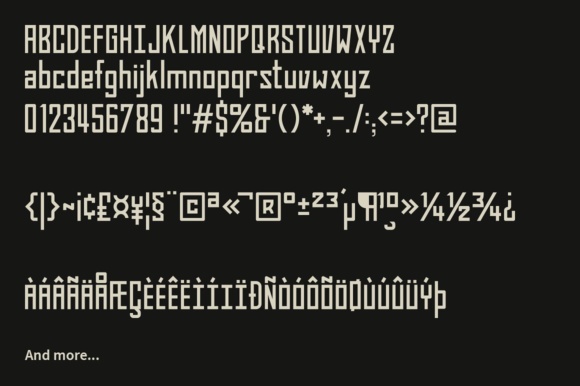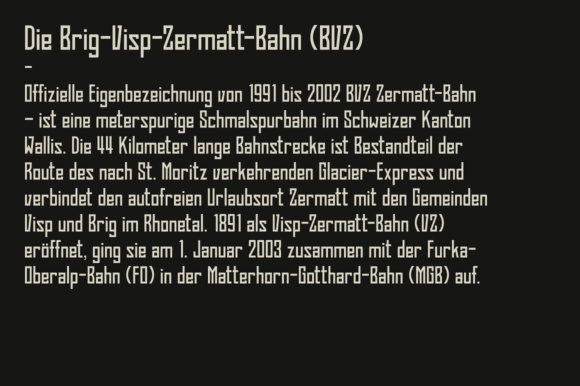
Bahn Pro Light Font: A Sleek and Nostalgic Display Font
Are you looking for a font that adds a touch of nostalgia and sophistication to your design projects? Look no further than Bahn Pro Light, a sleek and tall display font inspired by old Austrian Bahn (railway) signs. This font is perfect for use in a wide range of projects, from branding and advertising to packaging and signage.
The Inspiration Behind Bahn Pro Light
Bahn Pro Light is part of a wider font family that takes its cues from the classic typography of Austrian railway signs. The font’s design is rooted in the nostalgic feel of these vintage signs, which evoke a sense of adventure and travel. The Bahn Pro Light font has been carefully crafted to capture the essence of this retro aesthetic, while also offering a clean and modern look that’s perfect for contemporary design projects.
Key Features of Bahn Pro Light
So what makes Bahn Pro Light such a great choice for designers and crafters? Here are just a few of the key features that set this font apart:
- Sleek and tall design: Bahn Pro Light is a display font that’s designed to make a statement. Its sleek and tall design makes it perfect for use in headlines, titles, and other display text.
- Nostalgic feel: The font’s inspiration from old Austrian Bahn signs gives it a unique and nostalgic feel that’s sure to add a touch of character to your design projects.
- Clean and modern look: Despite its retro inspiration, Bahn Pro Light has a clean and modern look that’s perfect for contemporary design projects.
- Part of a wider font family: Bahn Pro Light is just one style in a wider font family, offering a range of options for designers who want to create a cohesive look across their projects.
Uses for Bahn Pro Light
So what can you use Bahn Pro Light for? The possibilities are endless! Here are just a few ideas to get you started:
- Branding and advertising: Bahn Pro Light is perfect for use in branding and advertising projects, where its sleek and sophisticated design can help to create a lasting impression.
- Packaging design: The font’s clean and modern look makes it a great choice for packaging design, where it can help to create a professional and eye-catching look.
- Signage and wayfinding: Bahn Pro Light’s inspiration from railway signs makes it a natural fit for signage and wayfinding projects, where its nostalgic feel can help to create a sense of familiarity and direction.
- Digital design: Bahn Pro Light can also be used in digital design projects, such as website headers, social media graphics, and more.
Tips for Using Bahn Pro Light
Here are a few tips for getting the most out of Bahn Pro Light:
- Use it as a display font: Bahn Pro Light is designed to be used as a display font, so use it to create headlines, titles, and other display text.
- Experiment with different colors: The font’s sleek and sophisticated design looks great in a range of colors, so don’t be afraid to experiment and find the perfect hue for your project.
- Pair it with other fonts: Bahn Pro Light can be paired with a range of other fonts to create a cohesive look. Try pairing it with a sans-serif font for a clean and modern look, or with a serif font for a more traditional feel.
Bahn Pro Light is a sleek and nostalgic display font that’s perfect for use in a wide range of design projects. Its inspiration from old Austrian Bahn signs gives it a unique and retro feel, while its clean and modern look makes it perfect for contemporary design projects. Whether you’re a designer, crafter, or simply someone who appreciates great typography, Bahn Pro Light is definitely worth checking out.